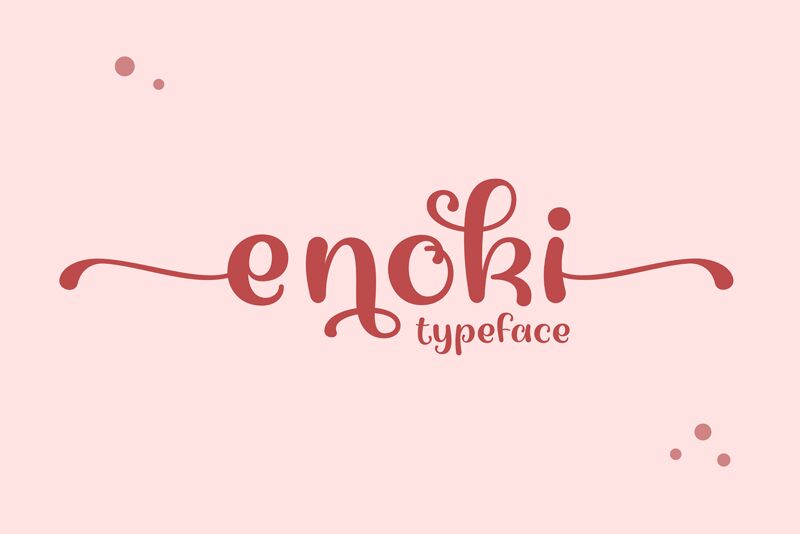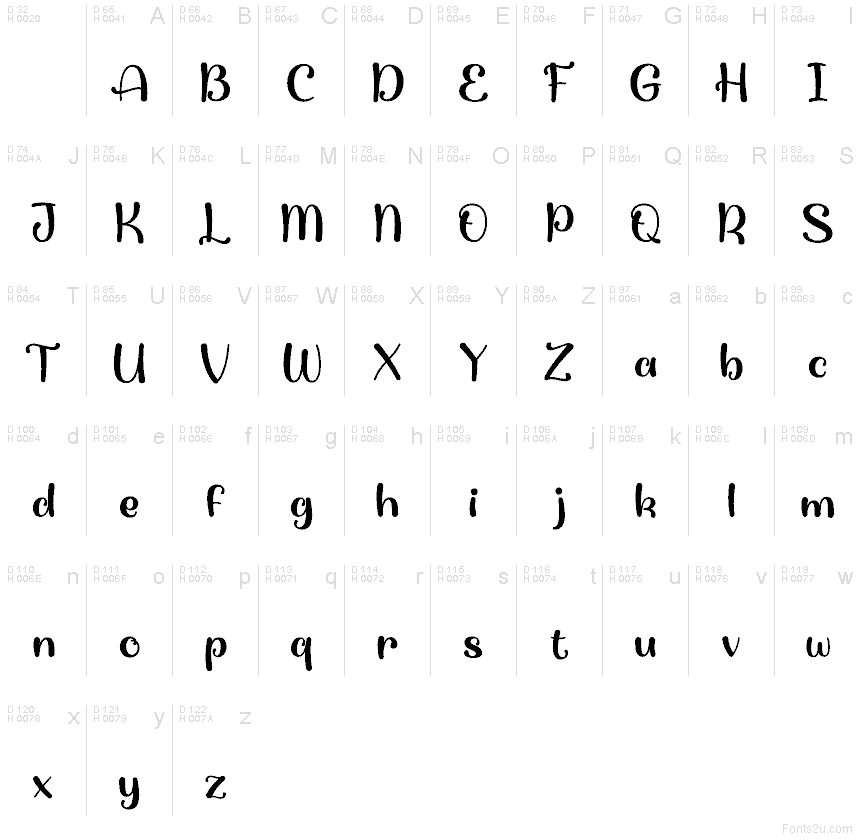
Enoki font by Toko Laris Djaja is a free brush typeface. Its plump, inky strokes puff and taper like fresh paint, giving each word a soft, hand-pressed bounce without losing clarity. The rounded forms feel tactile—almost glossy—so headlines look friendly and substantial, not messy. Set it a touch larger to let those juicy curves breathe, and pair with a neat, unobtrusive sans for small text.
Using Enoki, you get warm, immediate character that shines on cafe menus, artisan packaging, kids’ book covers, playful event posters, social graphics, farmers’ market signage, and sticker sheets. The steady rhythm and generous counters keep it readable while the quirky brush energy carries the mood. This free font delivers charm on first glance and stays legible when the message matters.